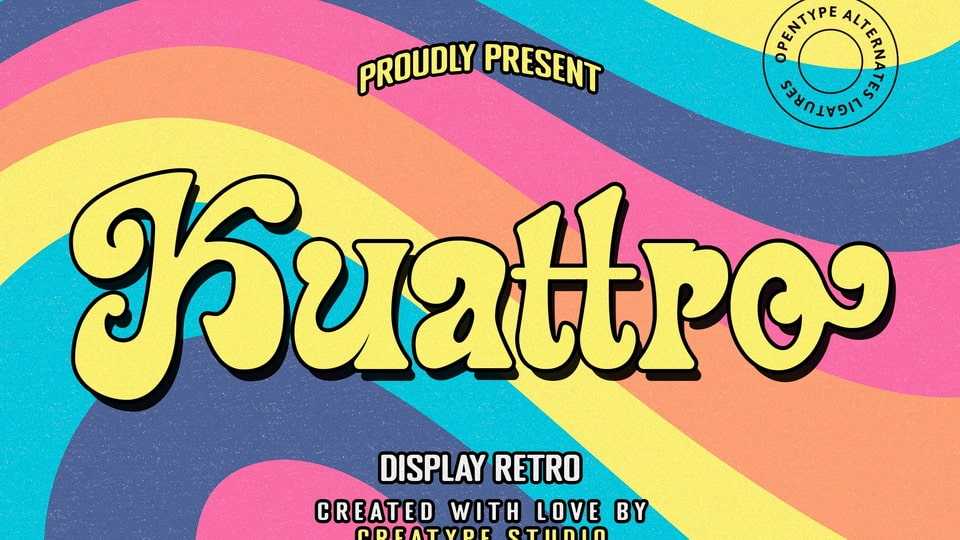
Download Kuattro font, a retro typeface that has fun and vintage vibes. Kuattro is perfect for branding projects, logos, wedding designs, social media posts, advertisements, and any projects that need handwriting taste.